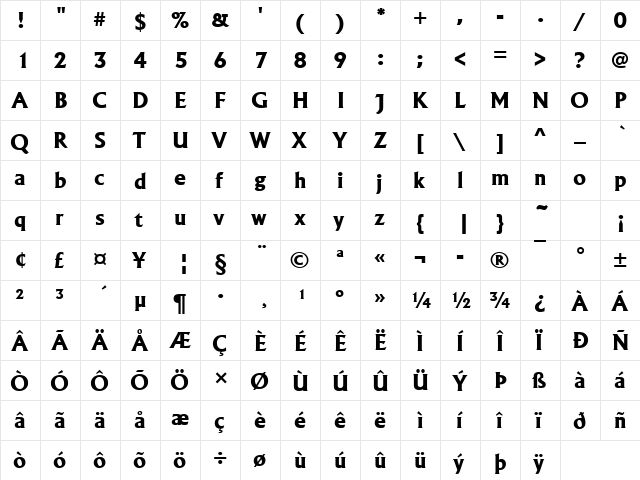
LapidarSerNo2URWTBol Regular
Design Context for LapidarSerNo2URWTBol Typeface
LapidarSerNo2URWTBol offers clean, dependable letterforms without strong stylistic allegiance, making it a practical choice for designers who need flexibility.